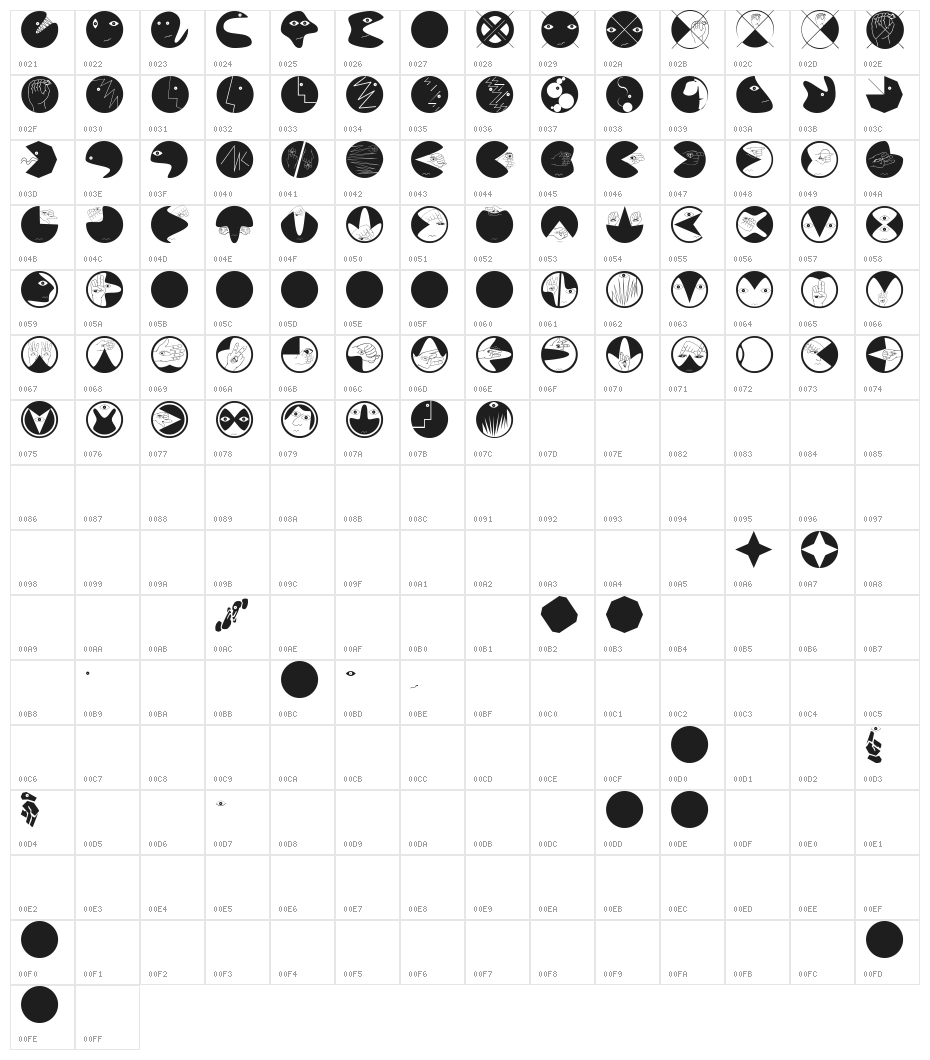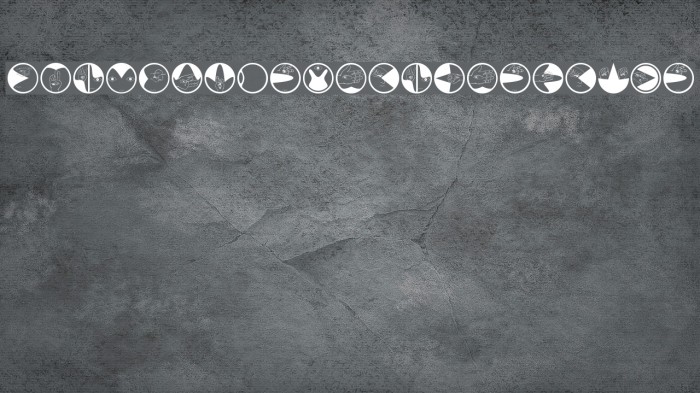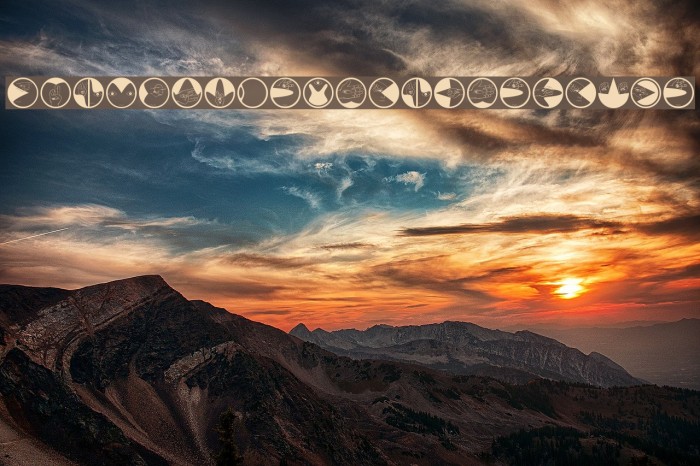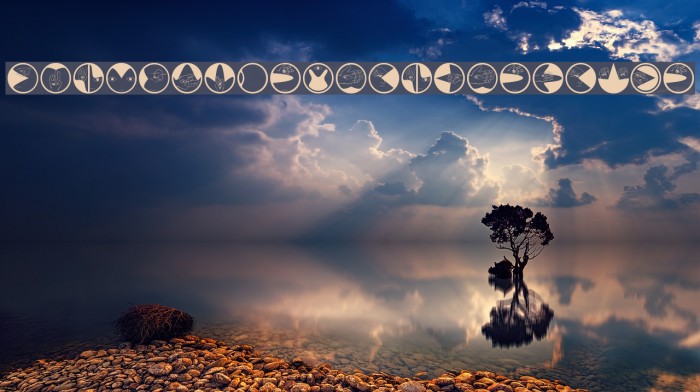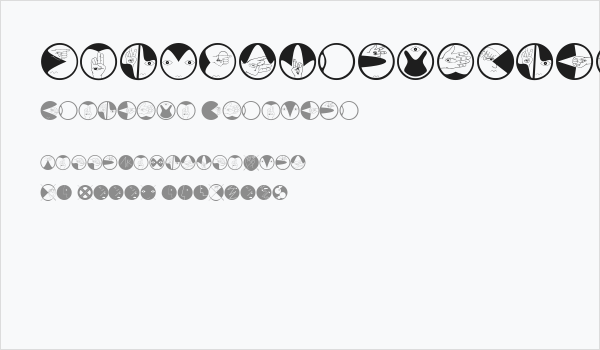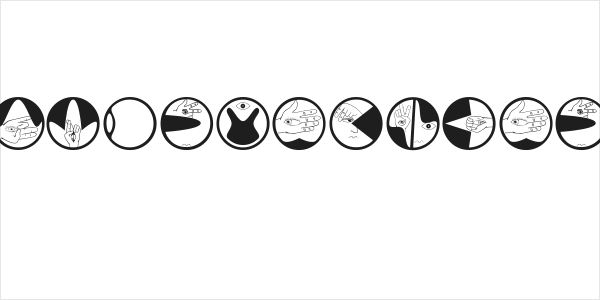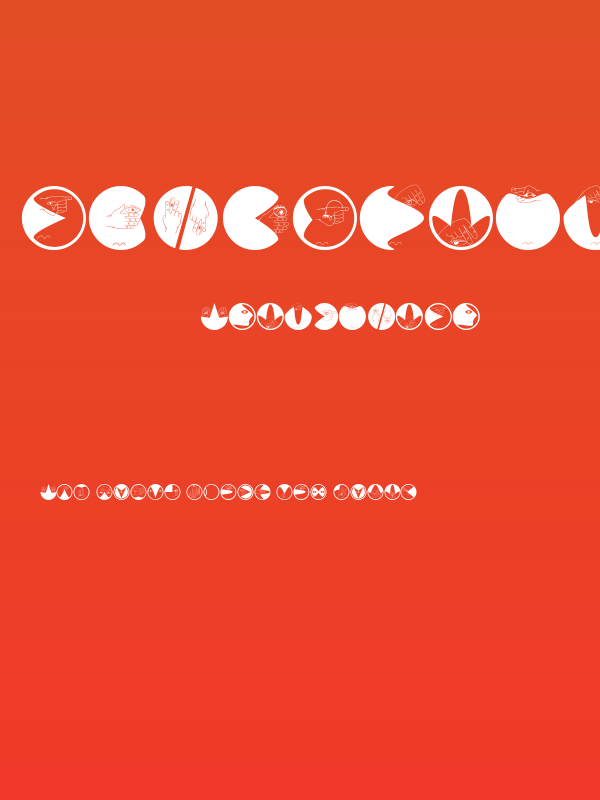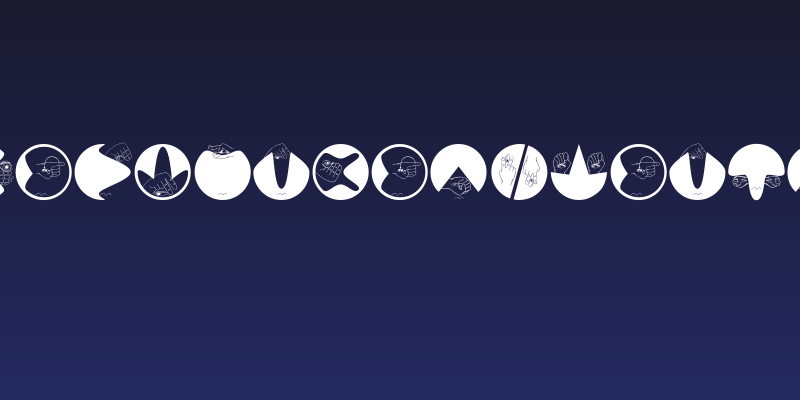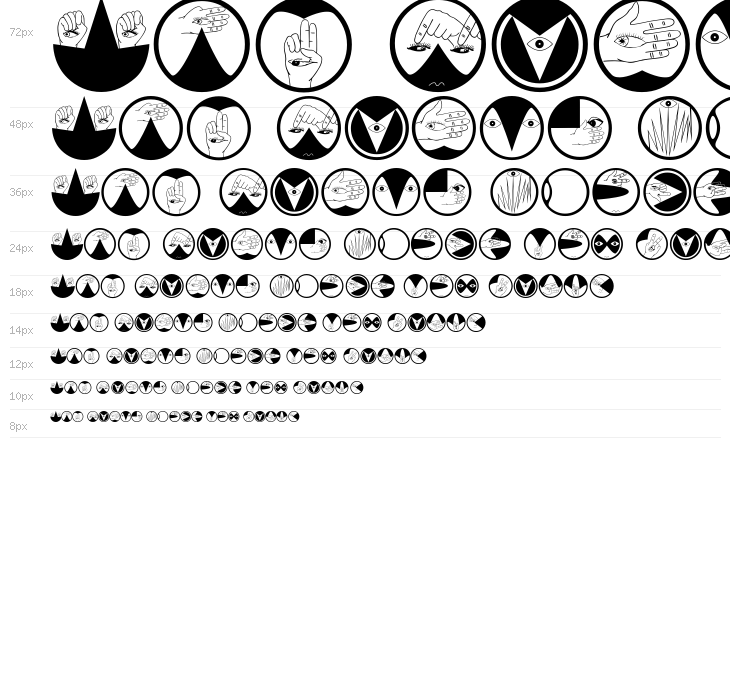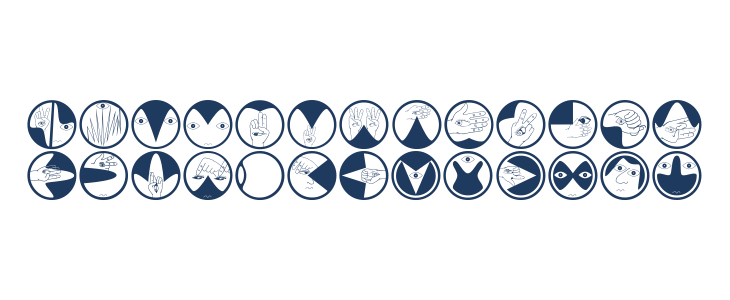
HeadImprovisationsTwo Font
HeadImprovisationsTwo Description
This font is a highly creative and abstract design, featuring characters enclosed within circular shapes. Each character is uniquely illustrated with a combination of geometric patterns and abstract art, creating a playful and artistic appearance. The design elements within each circle vary significantly, incorporating lines, shapes, and sometimes facial features or hand gestures. This font is not intended for traditional readability but rather for decorative or artistic purposes, making it ideal for projects that require a unique and eye-catching visual element. The bold use of black and white contrast enhances the striking appearance of each character, making them stand out distinctly.
| Overall Style | Artistic, Abstract, Decorative |
| Use Case | Logos, Posters, Artistic Projects |
| Proposed Projects | Ideal for artistic projects, album covers, posters, or any design work that requires a unique and visually striking element. |